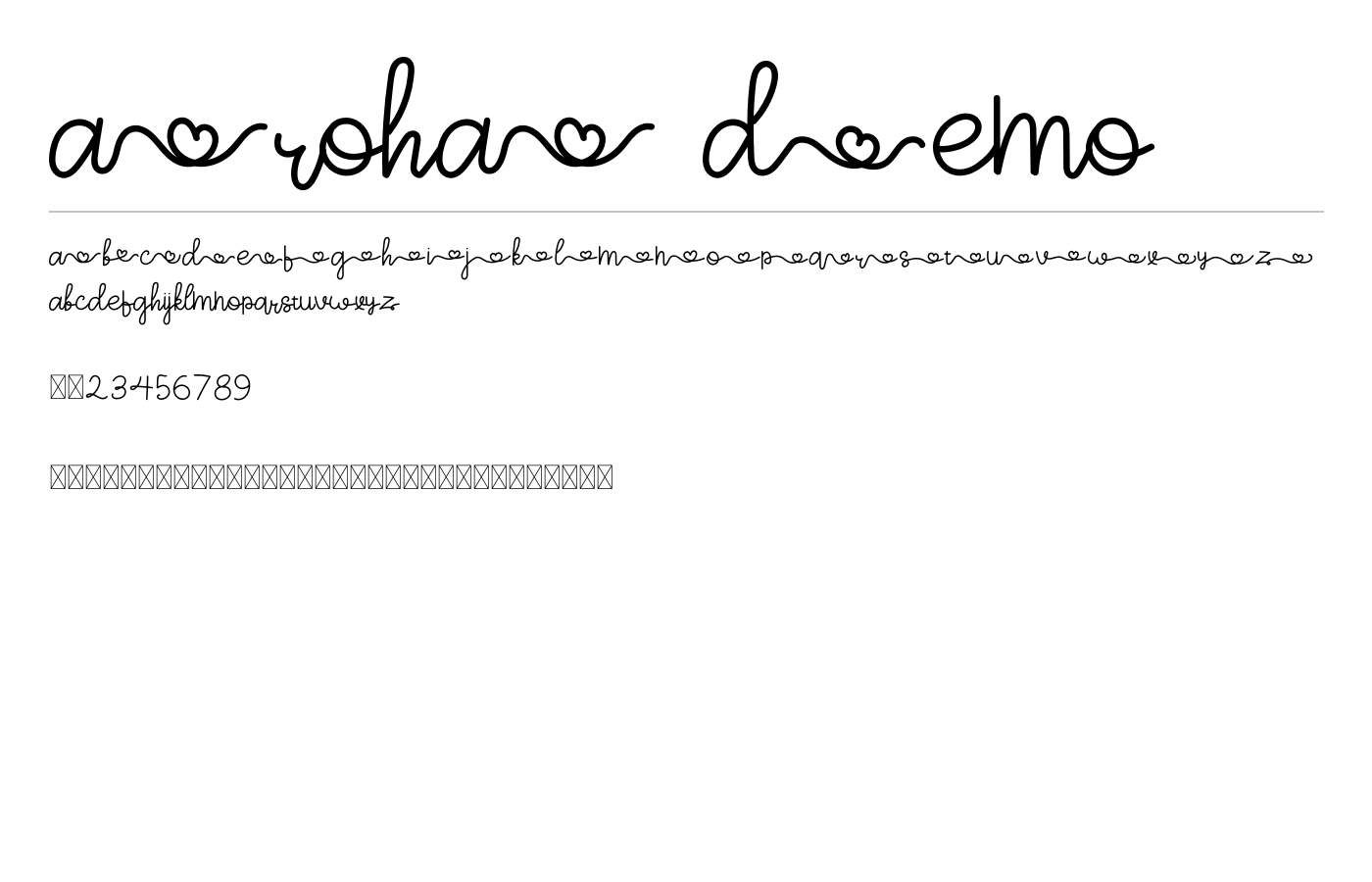
ArohA Demo is a playful, handwritten script font characterized by its delicate, flowing lines and charming heart-shaped embellishments linking letters. Its light weight and whimsical style make it perfect for romantic or casual designs, adding a personal and friendly touch to invitations, greeting cards, or creative branding. This font’s unique decorative elements give it a warm, approachable feel that works best in display contexts rather than body text.
ArohA Demo Font
About ArohA Demo Font
| Font family | ArohA Demo Font |
| Designer | Attype Studio |